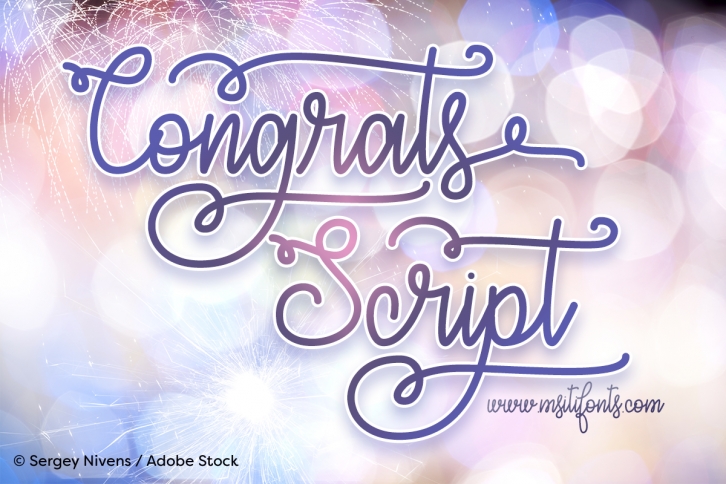
Congrats Script is a beautiful font that was designed by Misti Fonts. It's a great choice for designers and creatives who need such a font. It was released on May 23, 2017 and the file size is 20.53 MB. Congrats Script may give a more youthful, expressive and casual look to your project. It is a very beautiful, refined, elegant, and high-quality font.